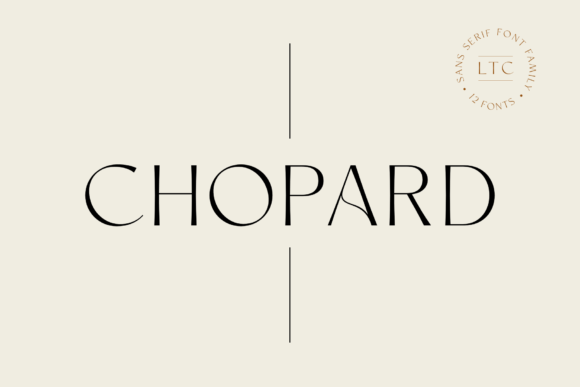
Introducing Chopard Font, the answer to your quest for the perfect font to enhance your creative projects! Created by the talented Pasha Larin, this elegant and modern sans serif font is specifically designed to make your navigation text shine.
Imagine the impact Chopard will have on your website, app, or any other project that requires clear and eye-catching typography. With its sleek and sophisticated look, this font will instantly elevate your designs to a new level of professionalism.
But Chopard is not just about aesthetics. It is meticulously crafted to ensure optimal readability, making it the ideal choice for any digital platform. Whether it's a website menu, button labels, or any other form of navigation text, Chopard's clarity will guide your users effortlessly through your content.
Stand out from the crowd with Chopard Font's captivating charm. Its timeless appeal will captivate your audience and leave a lasting impression. With its versatility, it seamlessly adapts to various design styles, from minimalistic to bold and impactful.
Unlock endless creative possibilities with Chopard Font. Transform your projects into visual masterpieces that effortlessly communicate your message. Take your designs to new heights with this font's unique character and impeccable style.